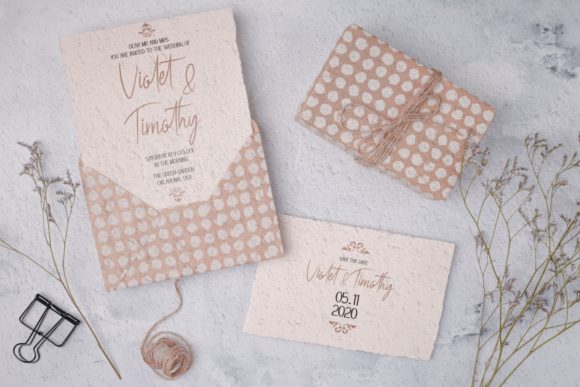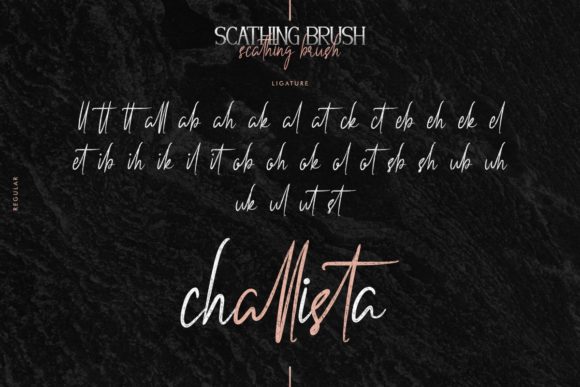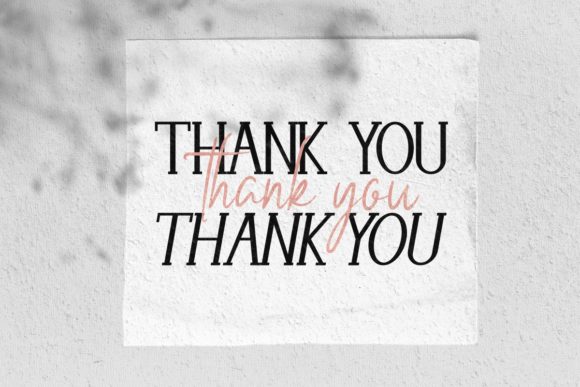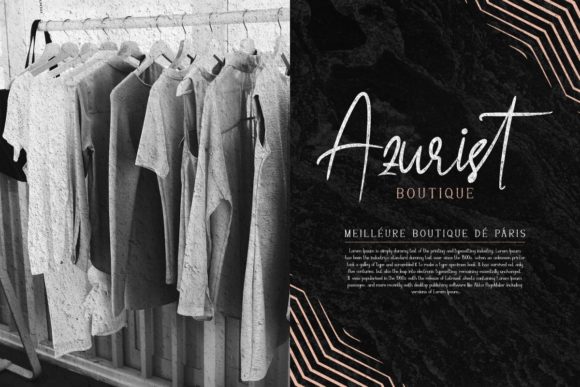
About Scathing Brush Font
Scathing Brush is a spectacular duo font (serif and script). Incredibly versatile, this font fits a wide pool of designs, elevating them to the highest levels. Add this font to your favorite creative ideas and notice how it makes them come alive!